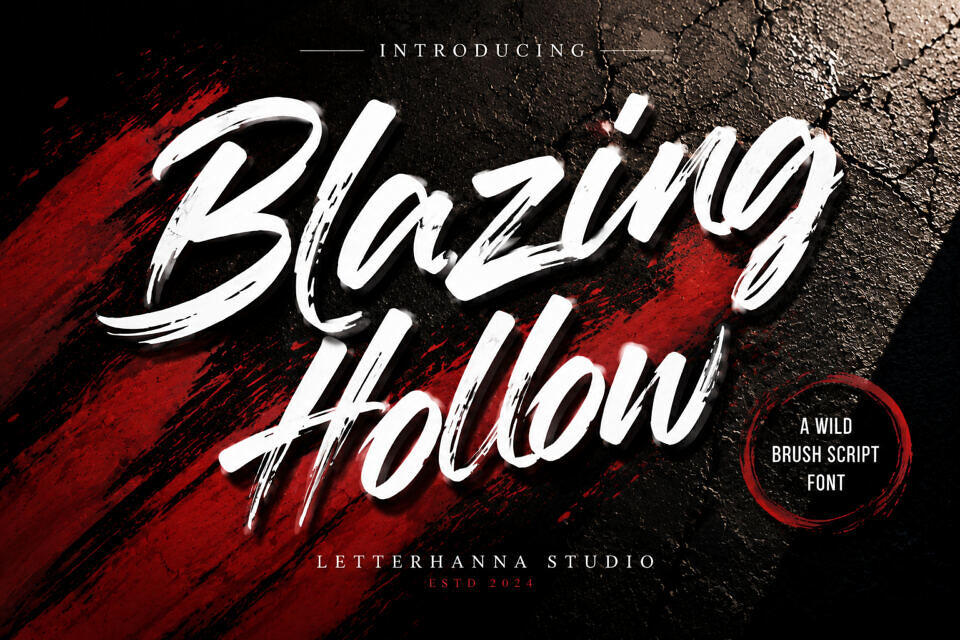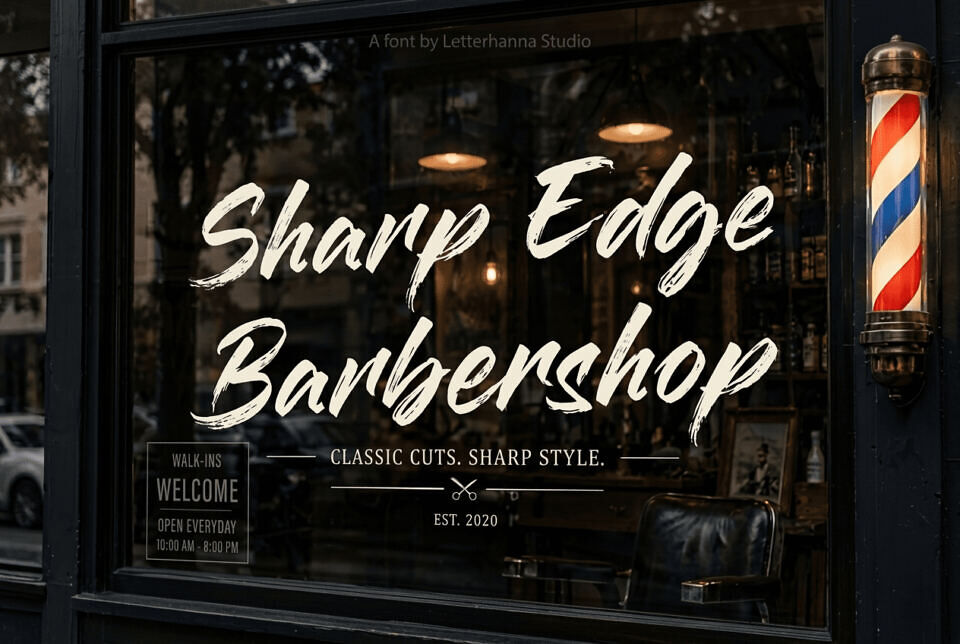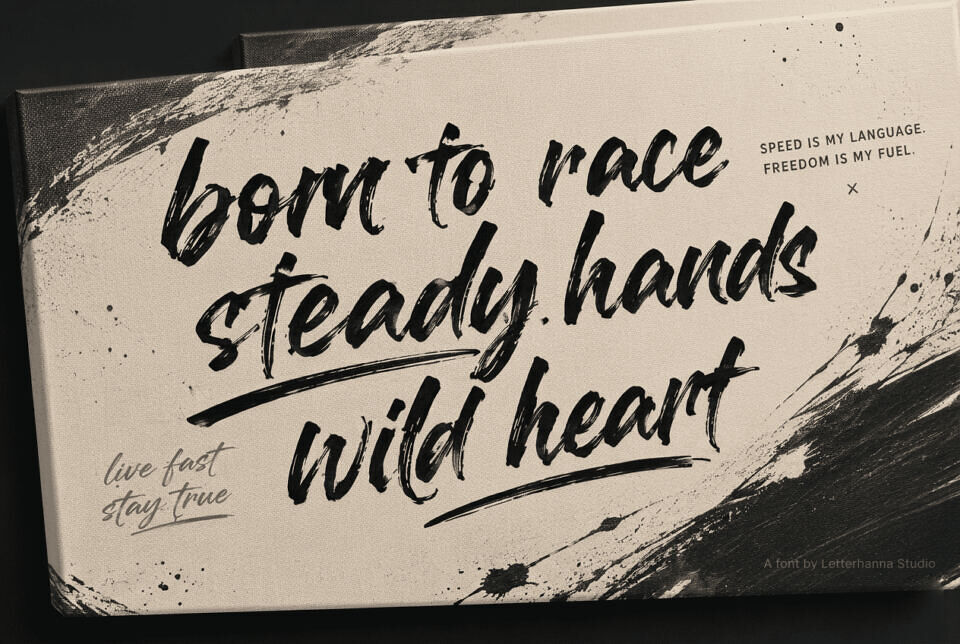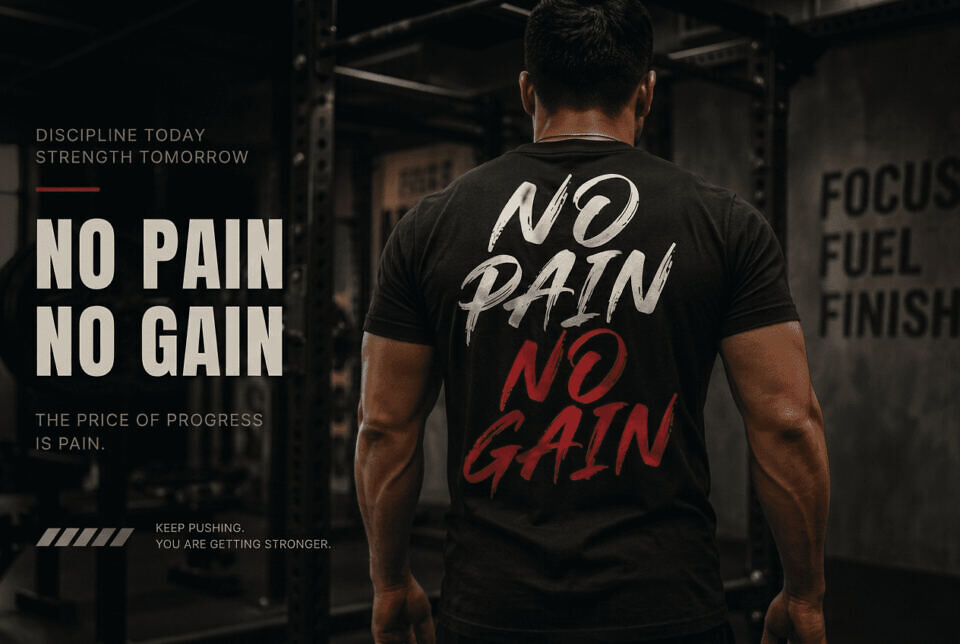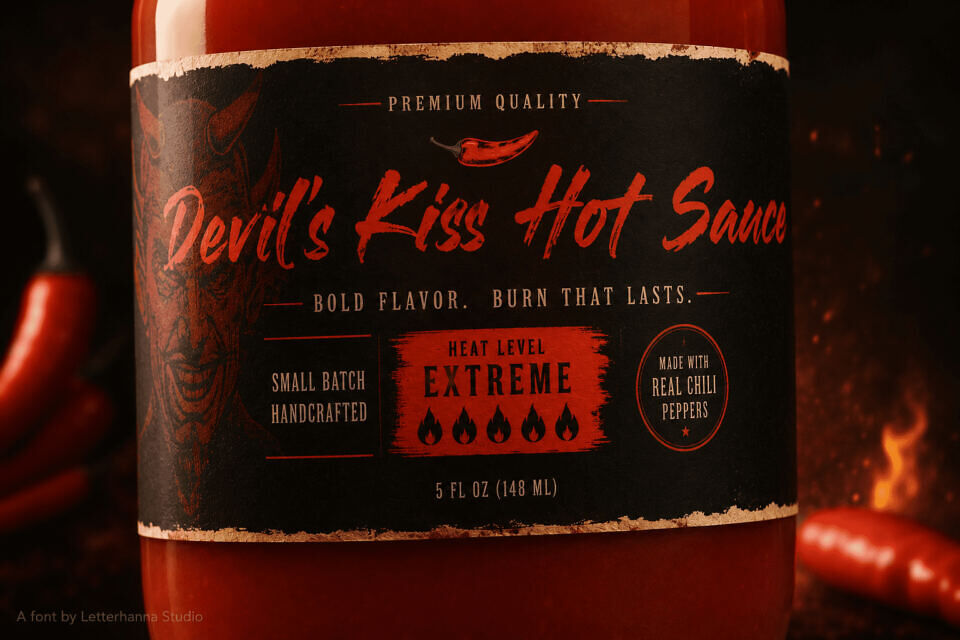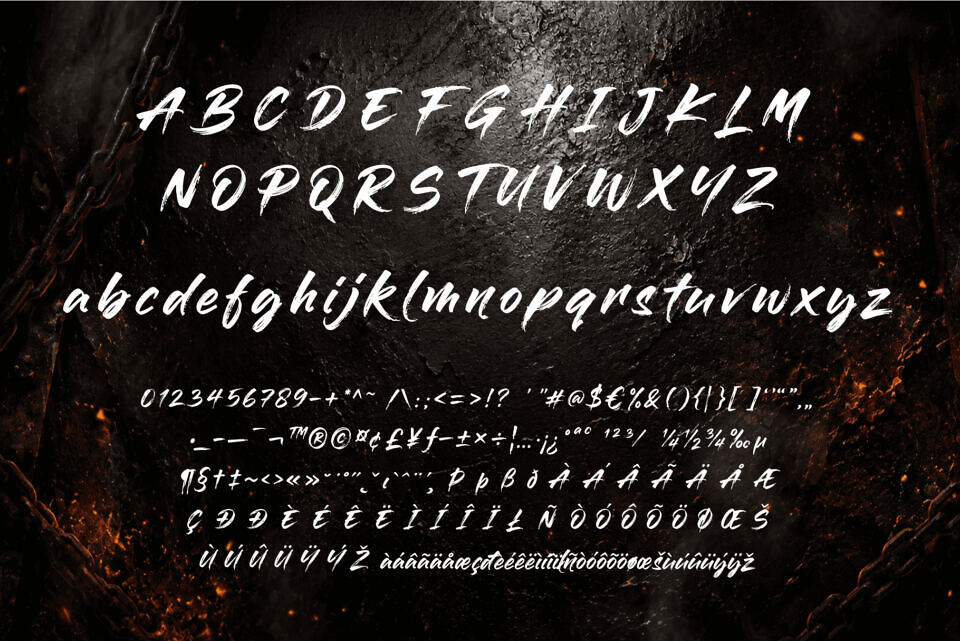
Meet Blazing Hollow, a fierce, hand brushed script font built for designers who want their work to feel loud, raw, and completely unapologetic. Each character is shaped with jagged brush textures, sharp diagonal cuts, and bold sweeping tails that make the whole alphabet feel like it’s caught mid motion.
This makes it an excellent choice for streetwear and apparel branding, sports team logos, gym and fitness graphics, packaging for bold snack or beverage brands, concert posters, tattoo style lettering, and any design that wants to feel rugged and real instead of polished and safe. It looks just as strong on a t-shirt as it does on a large product label.